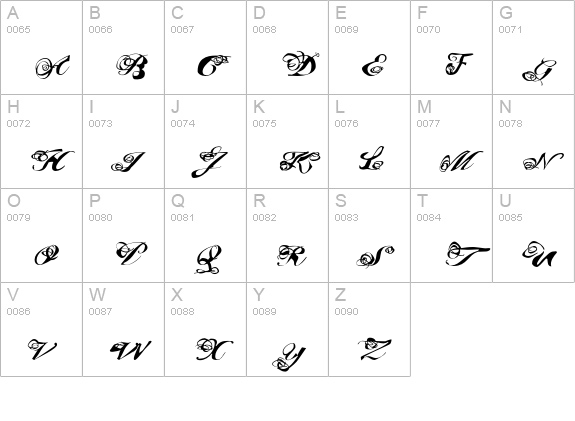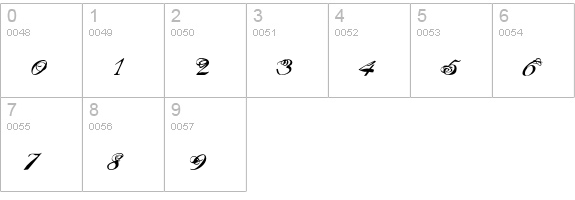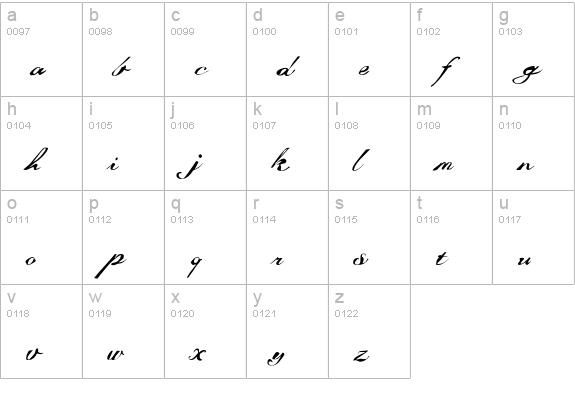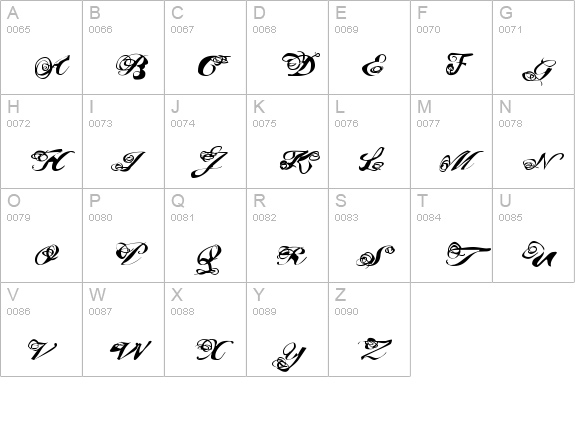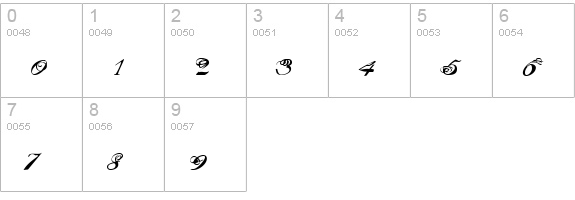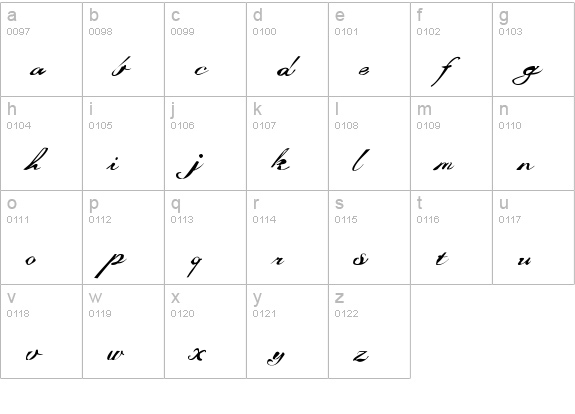
Masterpiece-Andante Font Details
Masterpiece-Andante is a stunningly beautiful font that exudes elegance and sophistication. Its graceful curves and delicate strokes make it a true work of art. This font is designed with meticulous attention to detail, ensuring that every character is perfectly balanced and harmonious. With its unique blend of classic and modern elements, Masterpiece-Andante is versatile and adaptable to various design projects. Whether you're creating wedding invitations, branding materials, or editorial layouts, this font will elevate your work to new heights. What sets Masterpiece-Andante apart is not only its impeccable design but also its accessibility. It is freely available to download at FontsMarket.com, making it accessible to designers and creatives all around the world. This font allows you to unleash your creativity without any restrictions, enabling you to express your artistic vision freely. The characters in Masterpiece-Andante are meticulously crafted, ensuring legibility and readability across various sizes and mediums. Its smooth lines and exquisite details make it a pleasure to work with, giving your designs a professional and polished look. With its timeless beauty and unmatched versatility, Masterpiece-Andante is a font that will instantly elevate any project. Its elegant aesthetic and effortless charm will captivate viewers and leave a lasting impression. Download Masterpiece-Andante for free at FontsMarket.com and let your creativity shine with this masterpiece of a font.